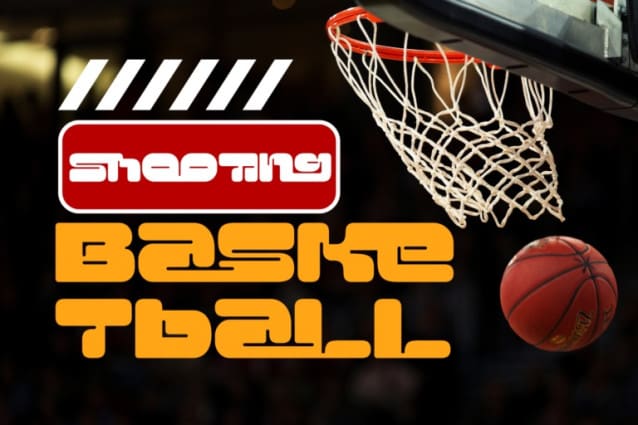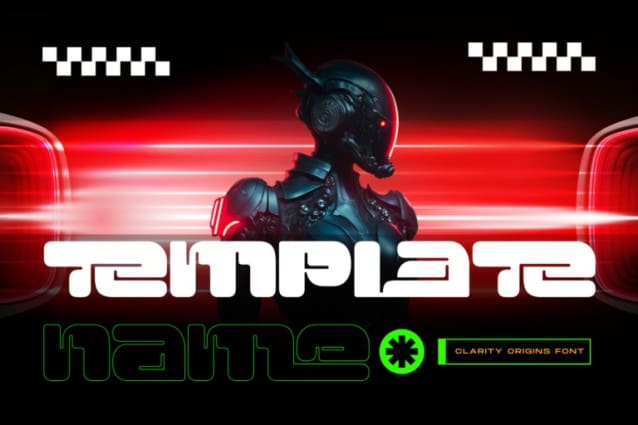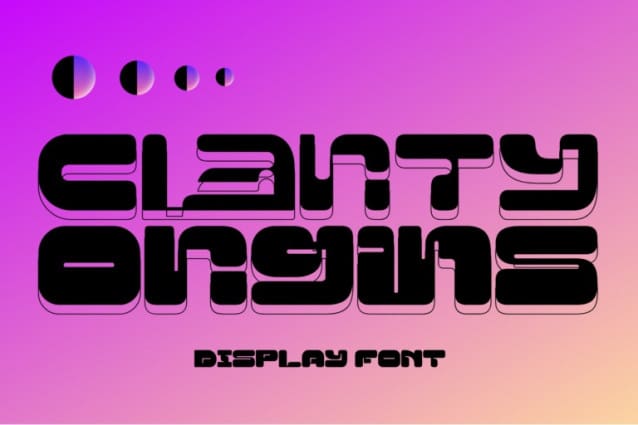
Clarity Origins Font
Clarity Origins Font is a futuristic and cutting-edge display font that merges the worlds of technology and design. It’s a bold, decorative techno-style font characterized by its strong, futuristic design. The font’s geometric and angular elements give it a modern, high-tech feel, making it ideal for projects that require a bold, dynamic aesthetic. Its thick, solid strokes make it highly suitable for titles and headlines, ensuring a powerful visual impact.
Clarity Origins was built with OpenType features and includes 100 ligatures, alternate, numbers, punctuation, and it also supports other languages.